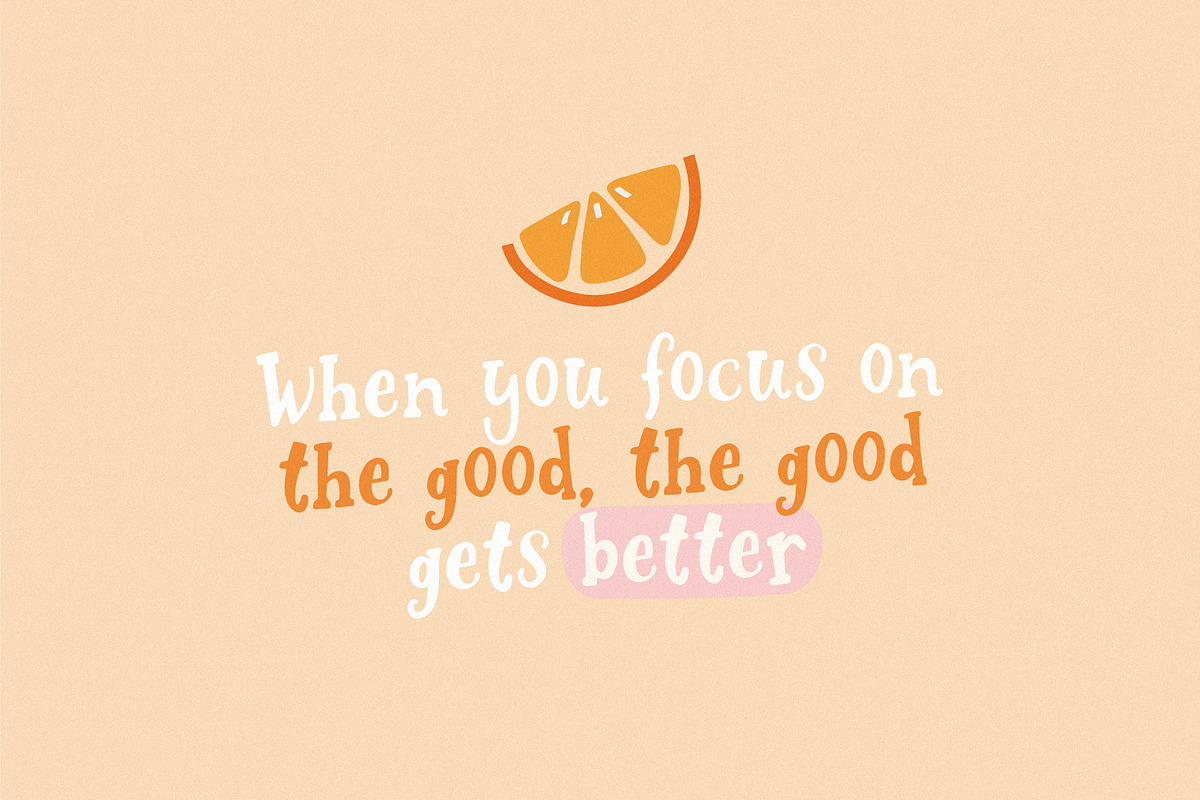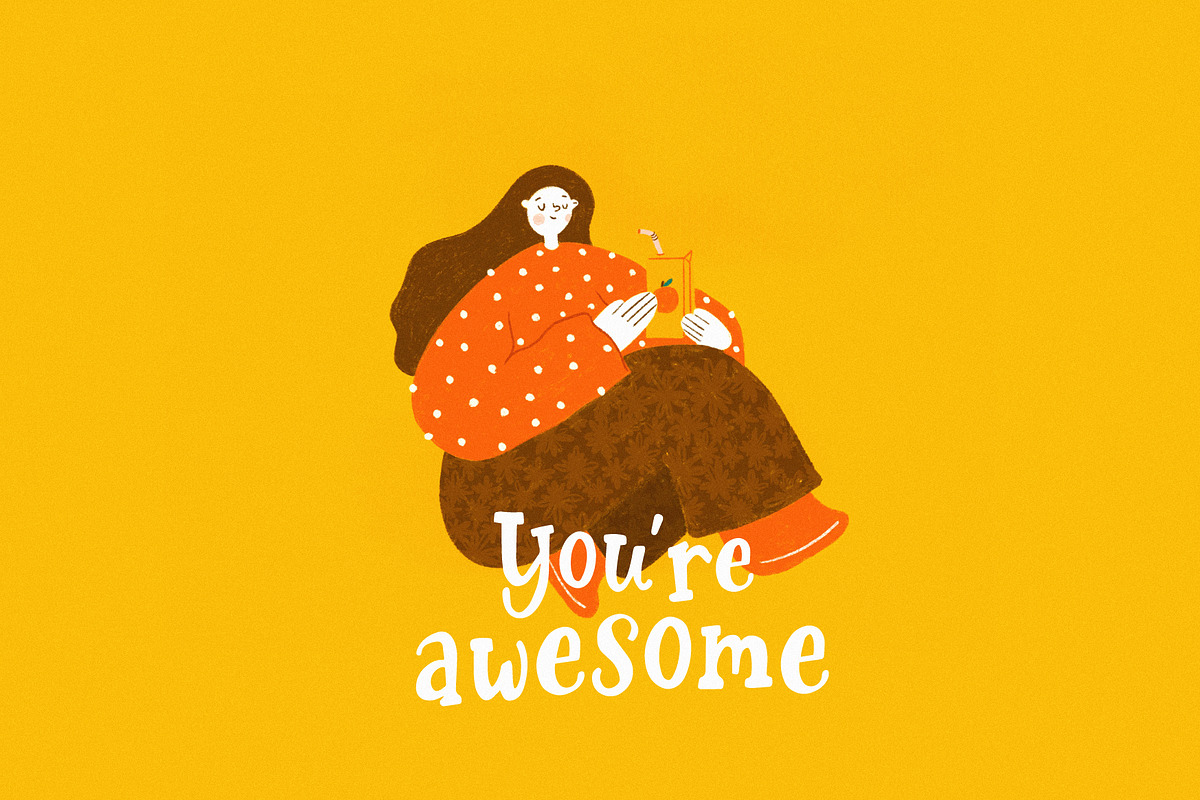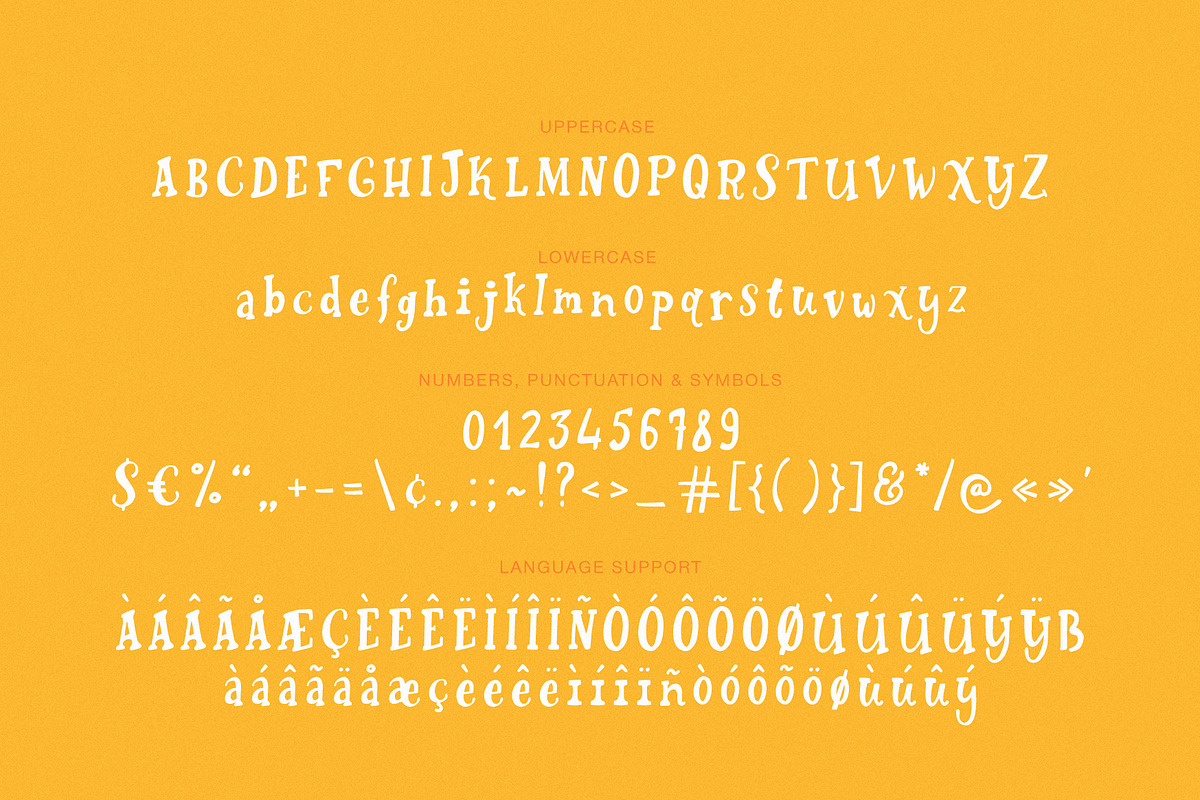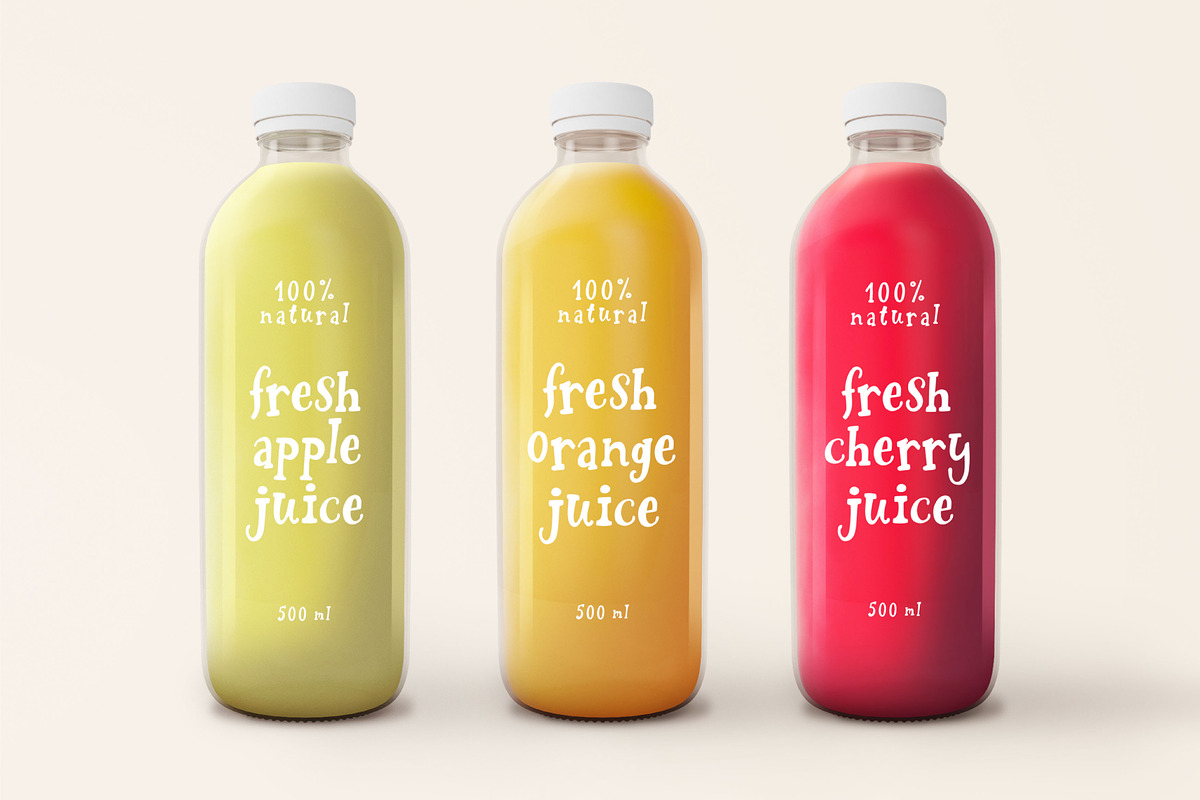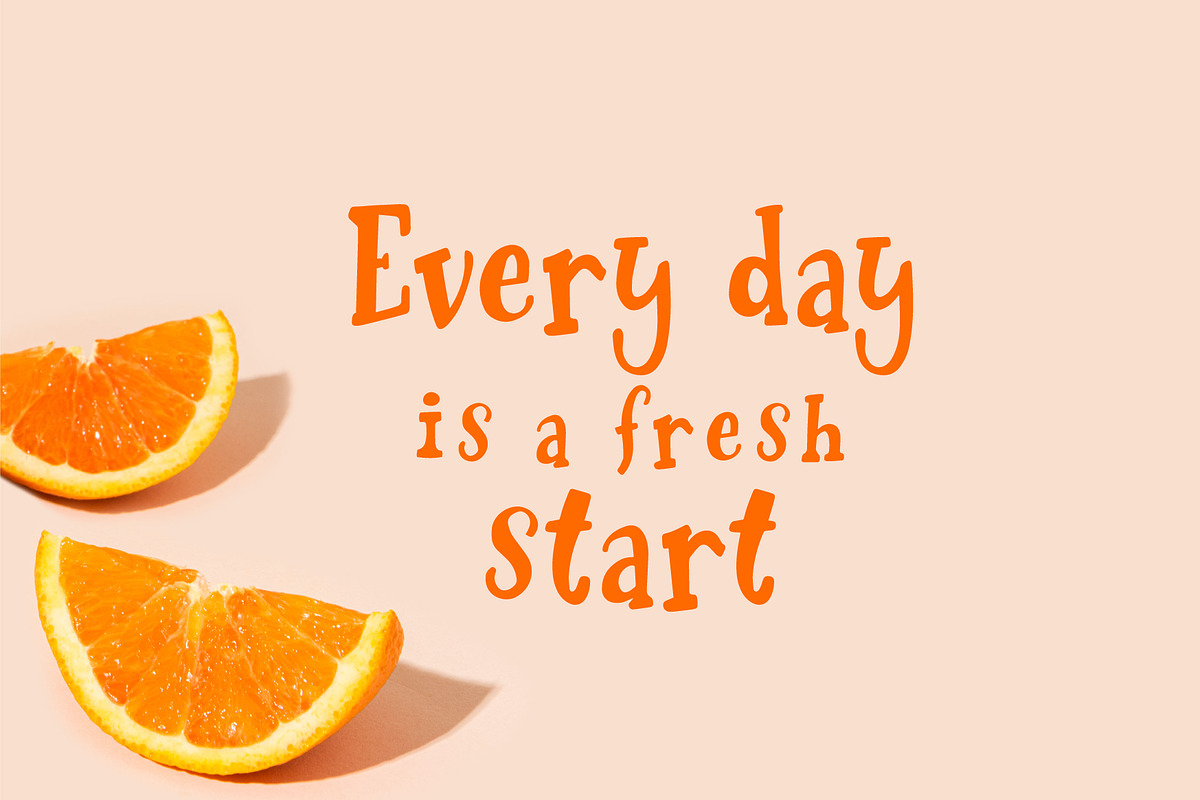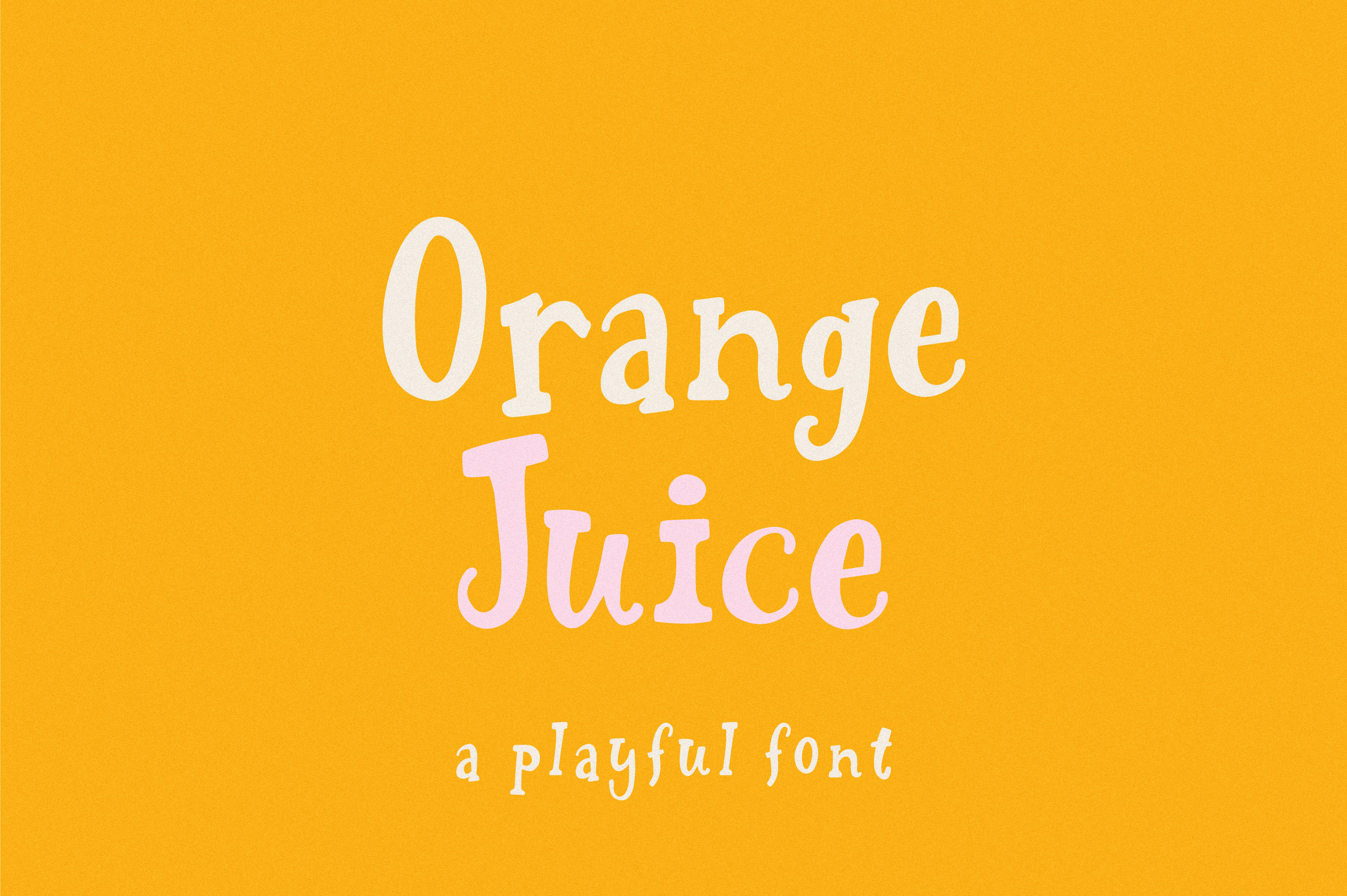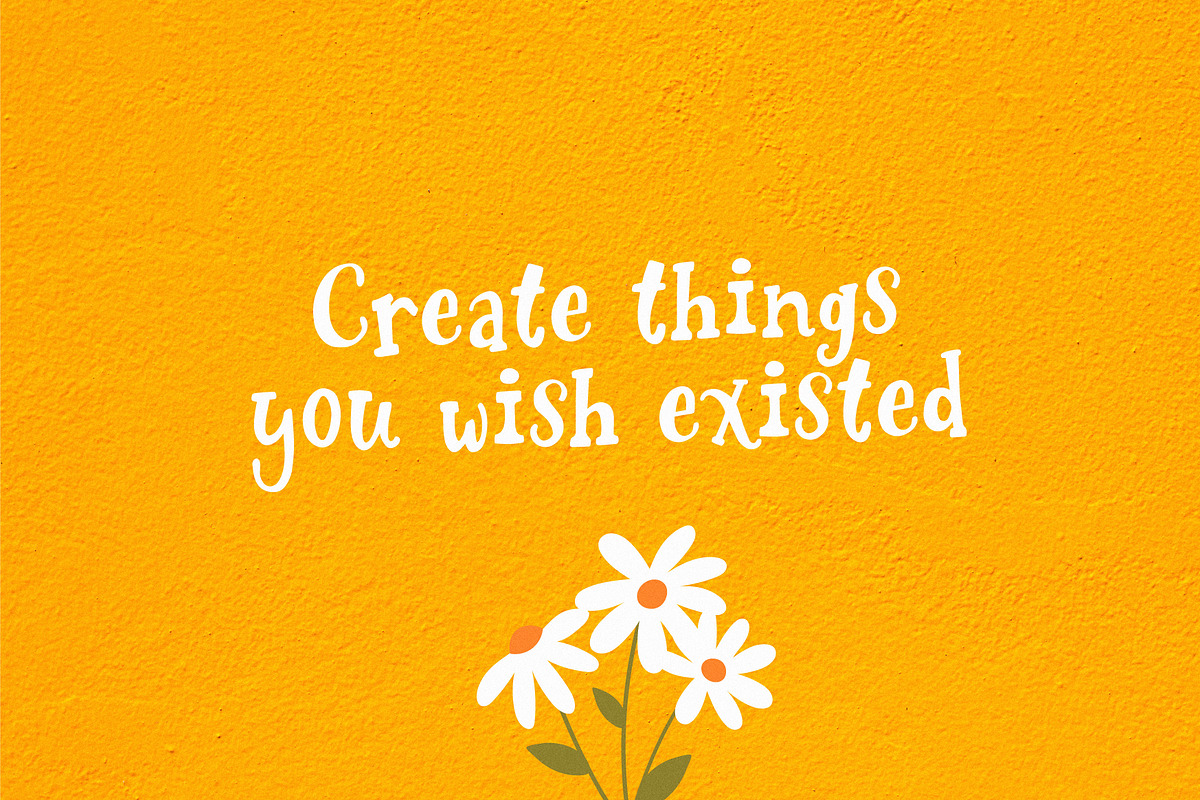
Orange Juice | Playful font
Orange Juice - playful handwritten font, ready to make your design looks great and fun! :) Use for quotes, greeting cards, invitations, posters, business cards, presentations and more!